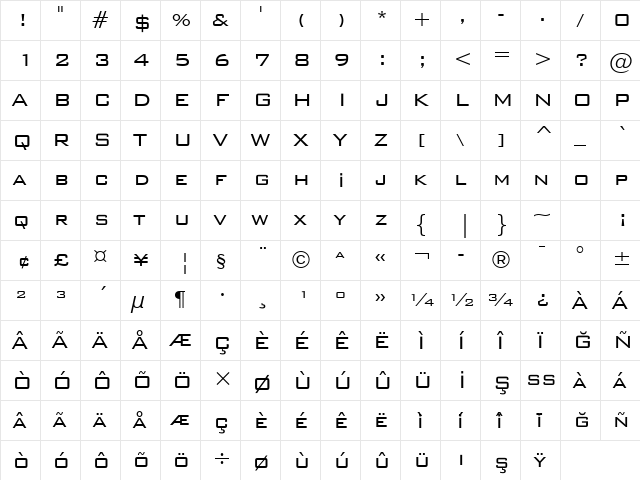
TrSah BankGothic Lt BT Light Font Preview
TrSah BankGothic Lt BT Light
Design Context for TrSah BankGothic Lt BT Typeface
TrSah BankGothic Lt BT has the quiet confidence of well-executed sans-serif typography: versatile, unobtrusive, and dependable at any size. Its slender proportions lend an understated elegance to any composition.
Ideal for fashion and beauty branding, minimal editorial layouts, and premium digital experiences.
Font Pairing: Pair TrSah BankGothic Lt BT with a medium or bold serif for headlines — the weight contrast creates an elegant, high-end feel.
Pro Tip: Avoid using TrSah BankGothic Lt BT at very small sizes where its slender strokes can disappear. It performs best at medium to large sizes.